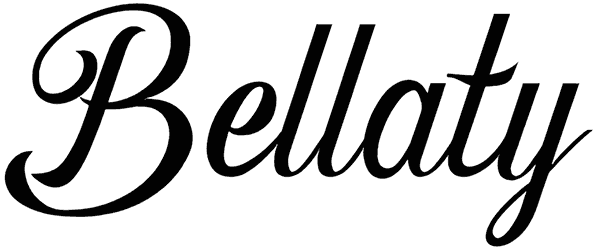
Bellaty Font
Bellaty is the font you need to recreate the 18th-century vibe in your projects. This script font can overcome limitations and literally create a sense of originality and elegance in the writing.
So design your wedding card, introduce your brand to the customer, and write all the text on the greeting card with this romantic font. Everything is placed in Bellaty’s characters to shiver your audience, and it can double your power of maneuver in attracting their attention.